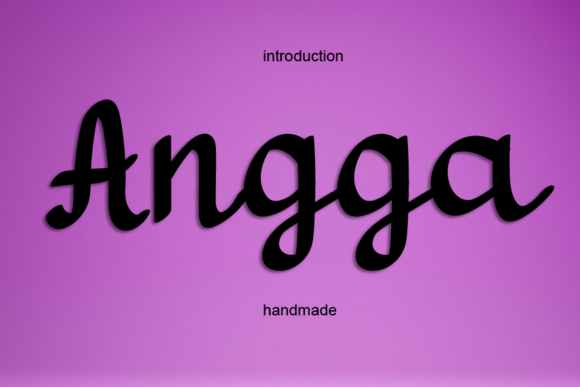
Step into the world of Angga Font, a calligraphic masterpiece that effortlessly blends tradition with modernity. Its chic, contemporary design will instantly elevate your projects to new heights.
Unleash your creativity with Angga, a script font that makes a statement. Its graceful lines and refined curves will add a touch of elegance to your fashion blogs, giving them a polished and professional look.
Immerse yourself in the beauty of Angga's handwritten charm. Each character has been meticulously crafted to evoke the authenticity and warmth of human touch. Whether you're creating captivating headlines, stunning logos, or alluring social media posts, Angga will add a touch of artistry that will turn heads.
Join the community of designers who have fallen head over heels for Angga Font. Its versatility and timeless appeal make it a must-have for any creative toolbox. Let Angga be your muse as you transform your designs into works of art that will capture hearts and leave a lasting impression.